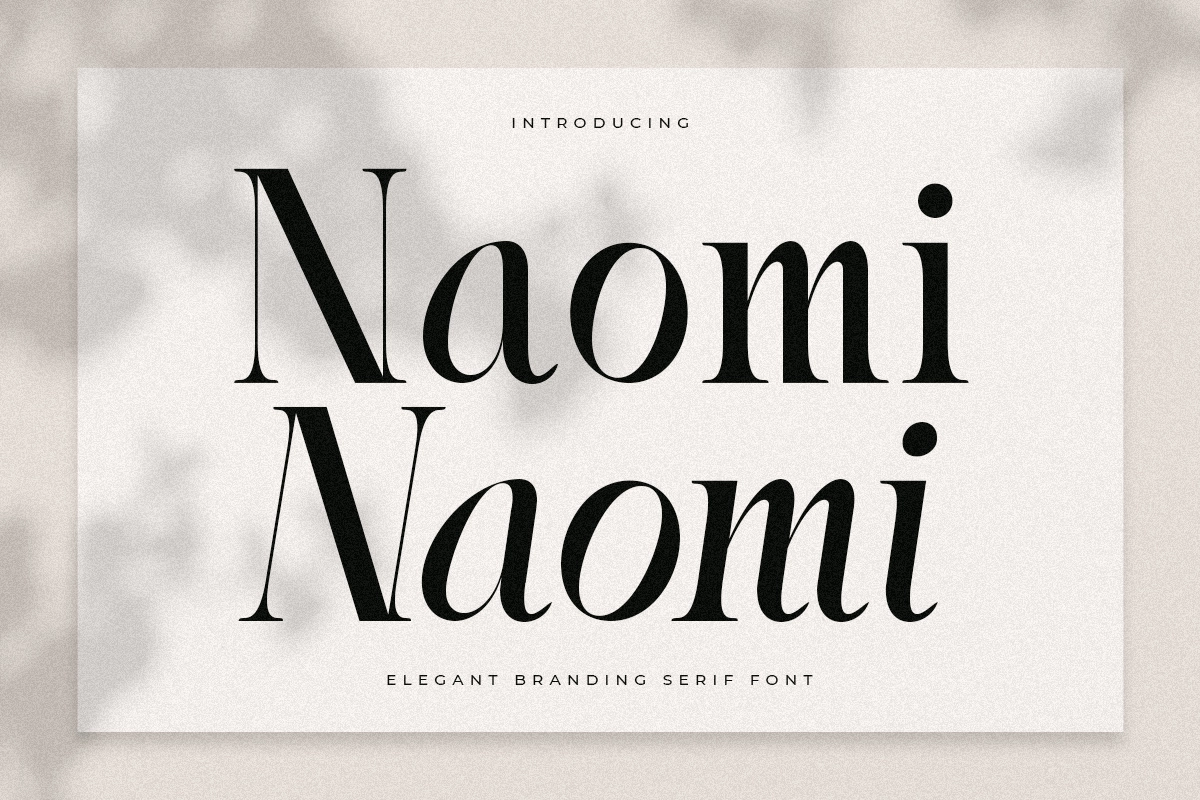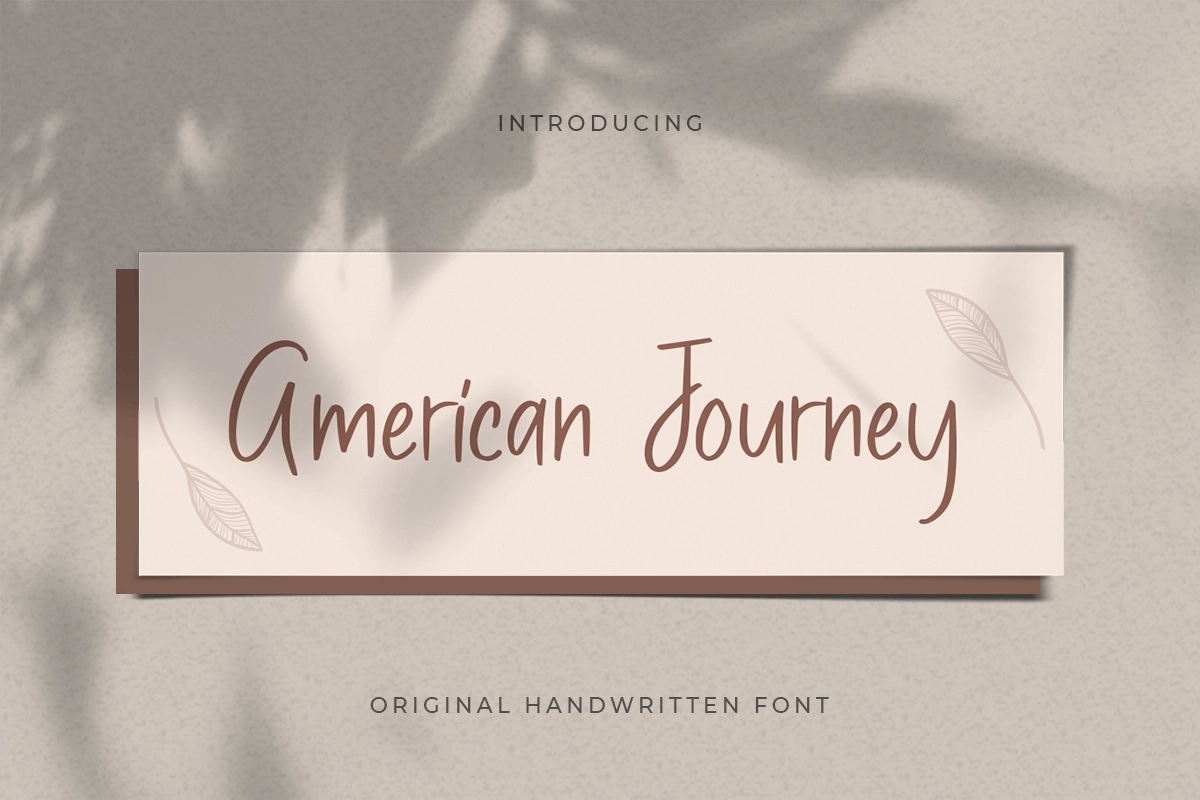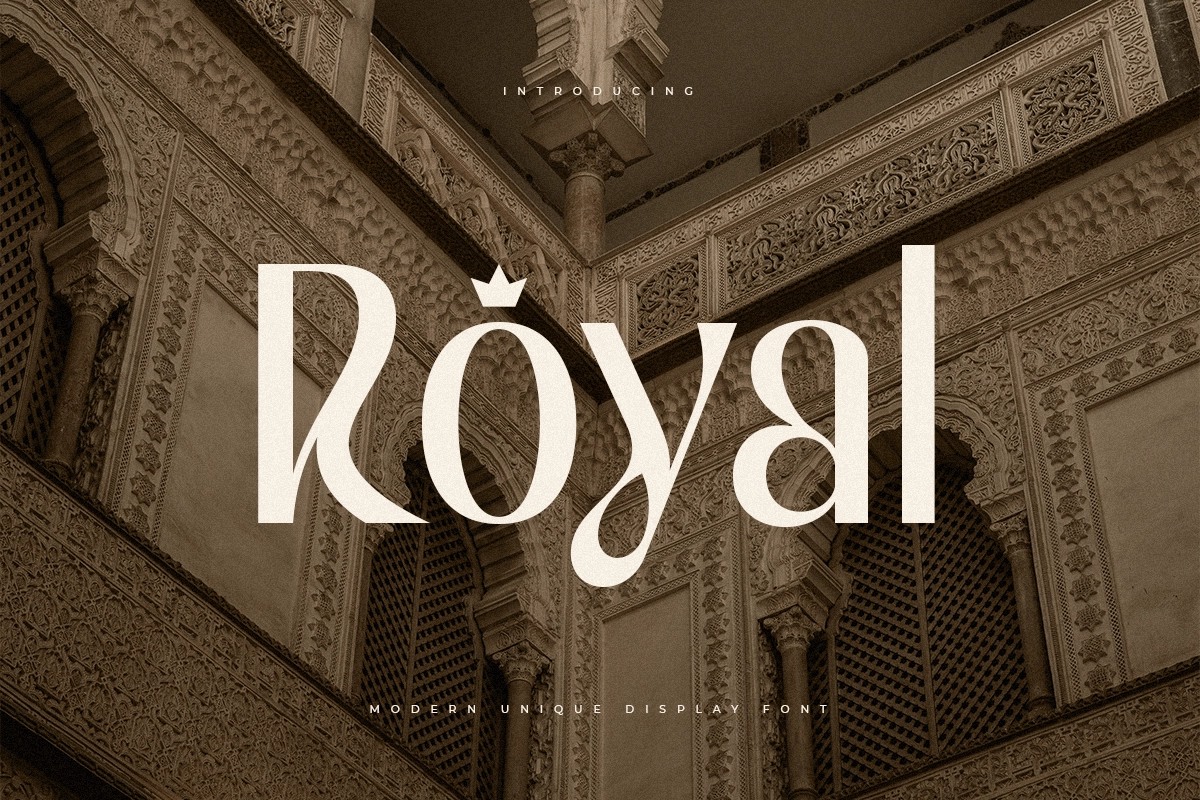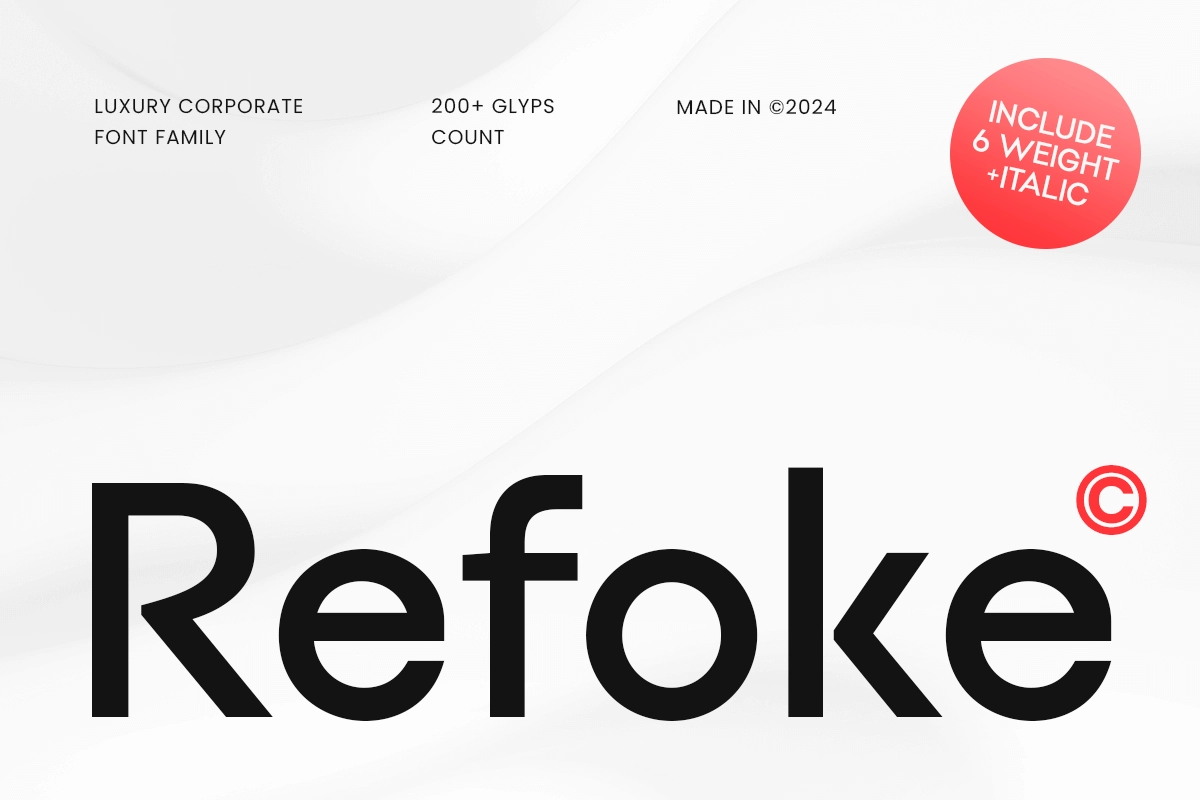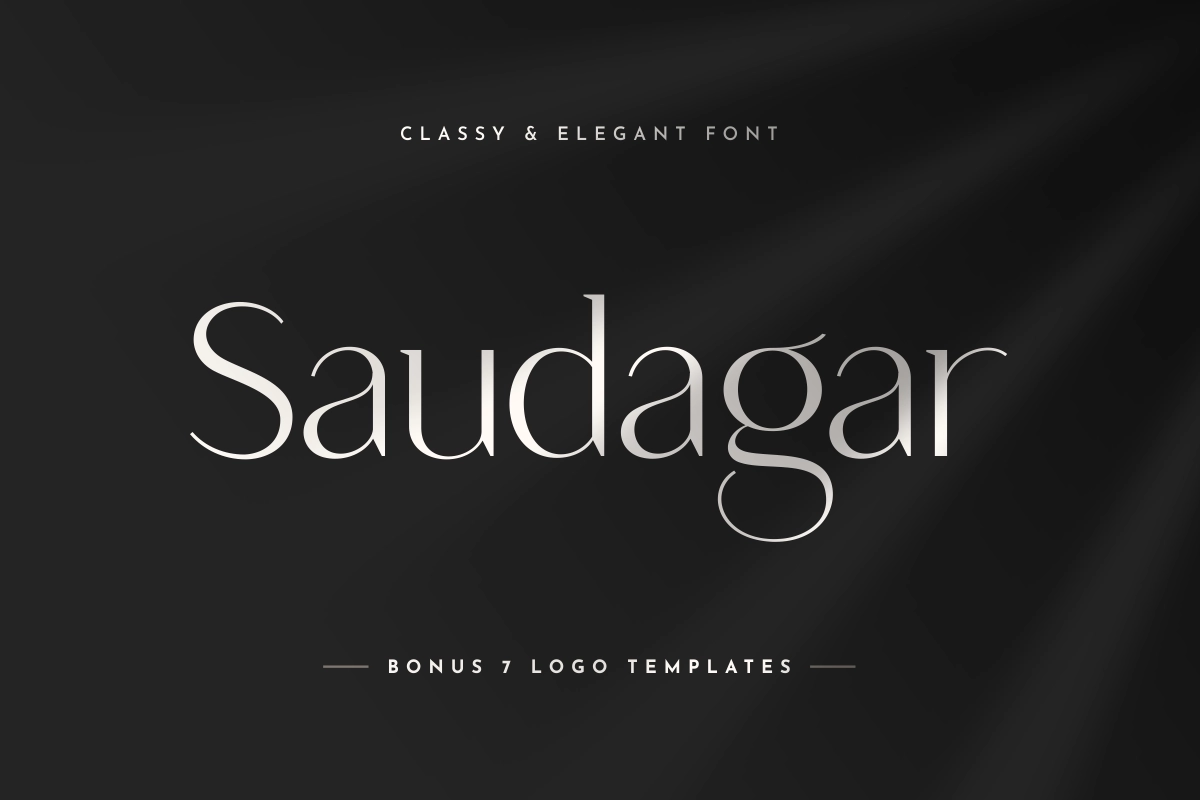
August 2026 Design Ideas, Holidays, and Font Inspiration
August 2026 is a balanced and intentional month for seasonal design, offering valuable opportunities for graphic designers, brand teams, and content creators to create more refined, structured, and purposeful campaigns. With key moments like International Friendship Day, Indonesia’s Independence Day, and World Photography Day, August presents a wide creative range, from bold identity-driven visuals and symbolic branding to clean editorial layouts and storytelling-focused content, making it an ideal time to explore thoughtful typography, controlled color palettes, and visually cohesive design approaches that feel polished, meaningful, and strategically engaging.
August 2026 Design Ideas, Holidays, and Font Inspiration
August carries a more grounded and intentional energy compared to the months before it. While July feels expressive and high-energy, August begins to shift toward clarity, structure, and refinement. It is still part of the summer season, but visually it feels more curated and composed. For brands, creative teams, and content creators, August 2026 offers a strong opportunity to build campaigns that feel more focused and purposeful. Some of the most relevant design moments to pay attention to are International Friendship Day on 2 August 2026, Indonesia’s Independence Day on 17 August 2026, and World Photography Day on 19 August 2026.
For designers, this month has a balanced visual spectrum. August can still feel warm and expressive, but it also supports cleaner, more controlled compositions. That contrast is what makes it useful. One campaign can feel bold and celebratory, while another can lean minimal, editorial, and storytelling-driven. If you are building seasonal content, August gives you room to create visuals that feel more intentional without losing engagement.
Why August?
August often works as a refinement phase. After the high-energy momentum of July, this month allows brands to sharpen their visual identity and create campaigns that feel more structured and thoughtful. It is a strong moment to move from purely attention-grabbing visuals into designs that feel more curated and message-driven.
From a design perspective, August supports several directions at once. It works for strong identity-led campaigns with bold typography, visual storytelling through photography and layout composition, and clean branding that focuses on clarity and balance. This allows designers to explore more controlled visuals while still maintaining personality.
For lifestyle, fashion, creative, and personal brands, August is especially useful because it feels more grounded. There is more space to highlight visuals with intention, build narrative-driven content, and create campaigns that feel less rushed and more refined. Typography becomes more strategic in this phase, shifting from purely expressive into something that supports both clarity and visual identity.
Best Alternative Fonts For August
Refoke - Luxury Corporate Font Family
Refoke is a luxury corporate font family designed to deliver professionalism, clarity, and a refined visual structure. With its clean and versatile letterforms, this typeface works perfectly for branding systems, corporate visuals, and campaign layouts that require consistency and balance. It creates a polished and trustworthy visual tone, making it highly suitable for August’s more structured and intentional design direction.
Naomi - Elegant Branding Serif Font
Naomi is an elegant branding serif font crafted to bring sophistication, style, and a strong editorial presence into your designs. With its refined details and graceful contrast, this typeface is ideal for photography-based campaigns, lifestyle branding, and magazine-style layouts. It supports storytelling through visuals while adding a premium and curated aesthetic that aligns perfectly with August’s more thoughtful tone.
Royal - Modern Unique Display Font
Royal is a modern unique display font designed to create bold and memorable visual impact. With its distinctive shapes and strong character, this typeface works well for campaign headlines, posters, and identity-driven visuals. It is especially effective for moments that require a confident and attention-grabbing presence, while still fitting within August’s more controlled and refined visual direction.
American Journey - Original Handwritten Font
American Journey is an original handwritten font designed to bring a natural, personal, and authentic feel into your typography. Its organic strokes and casual flow make it perfect for storytelling content, quotes, and community-driven campaigns. This typeface helps create a warm and human-centered visual tone, making it especially relevant for content focused on relationships and connection.
Saudagar - Elegant Font
For designers, that means August is not a one-note month. It is a month with a balanced visual spectrum. If you approach it with a clear campaign angle, refined typography, and intentional visual direction, it can become one of the most effective and strategically valuable moments in the design calendar.